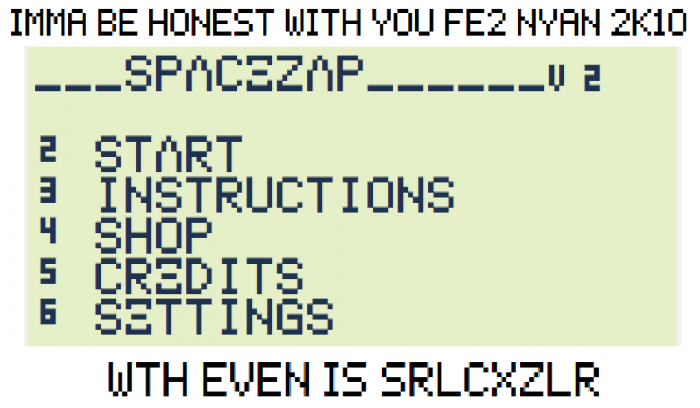
• This is the first font I made. It is based on the Casio Scientific Calculator font. At least it's modified.
At least it have more than 7x5 pixels. It has a top and a bottom part.
e.g. Ā (9x5), Ǻ (14x5), Ș (10x5)